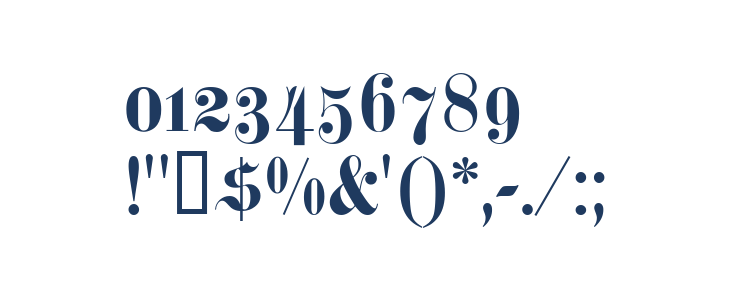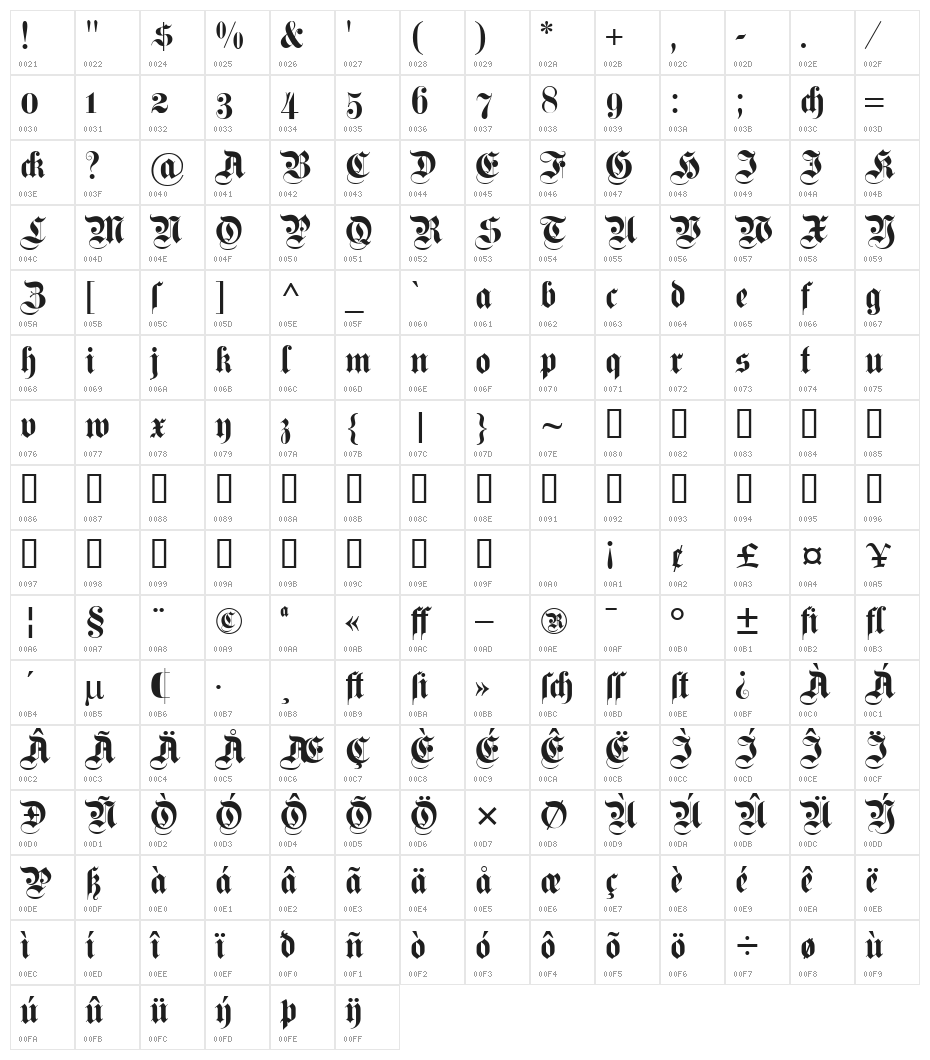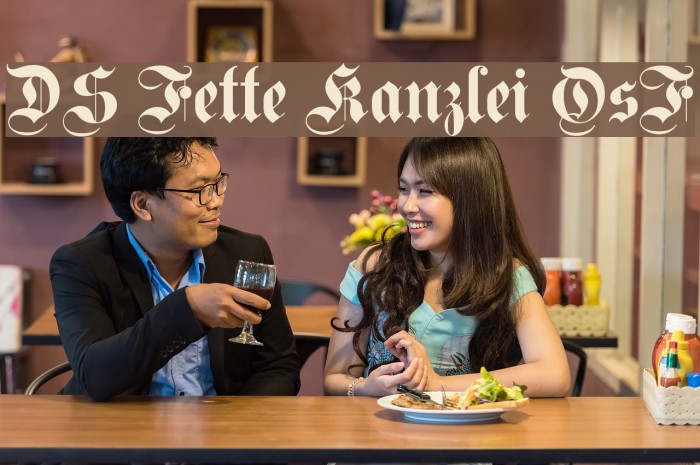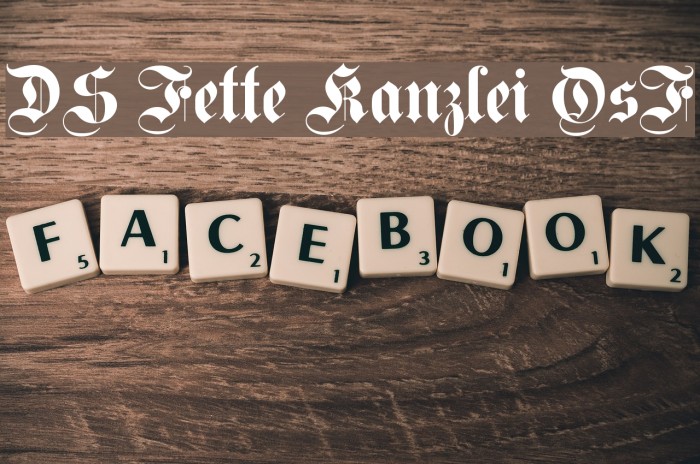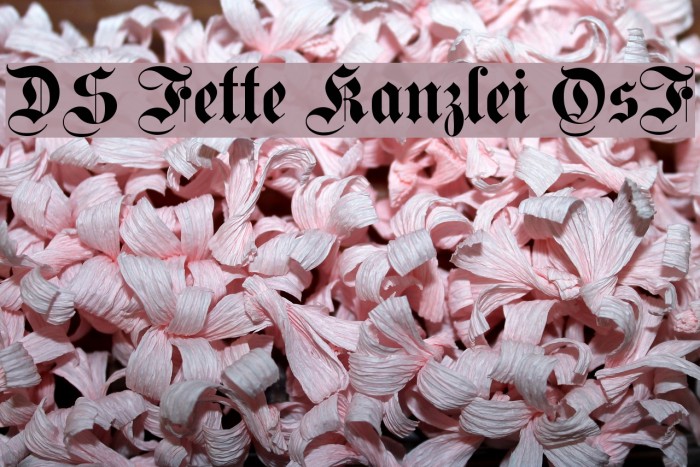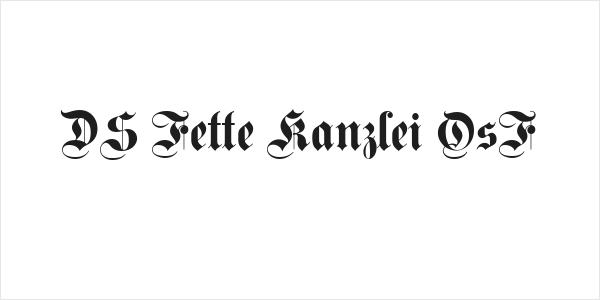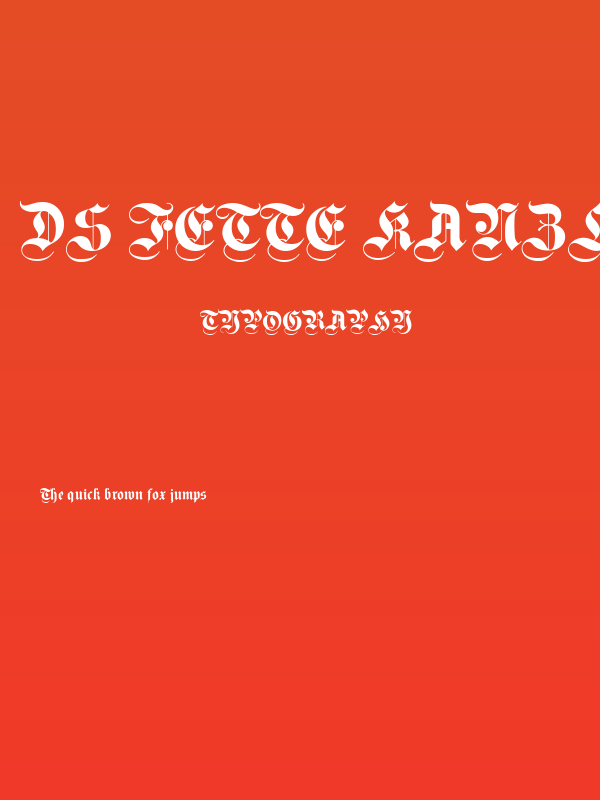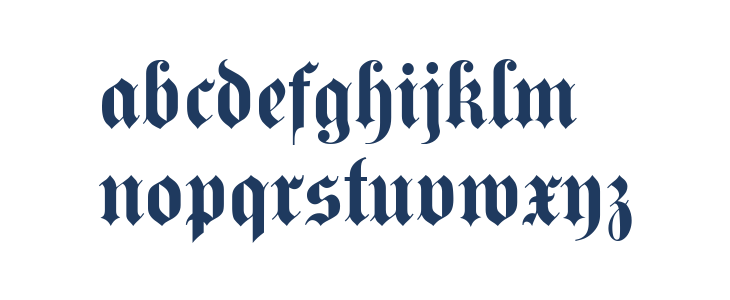
DS Fette Kanzlei OsF Font
DS Fette Kanzlei OsF Description
This font exudes a classic and traditional aura with its intricate and ornate design. The characters are reminiscent of historical scripts, featuring elaborate flourishes and a bold, authoritative presence. The uppercase letters are particularly striking, with their dramatic curves and sharp angles, while the lowercase letters maintain a consistent style that complements the overall aesthetic. The numerals and special characters are equally detailed, ensuring a cohesive look across all text. This font is ideal for projects that require a touch of elegance and historical charm, such as invitations, certificates, or branding that seeks to convey a sense of heritage and sophistication.
Overall StyleClassic
Proposed ProjectsIdeal for invitations, certificates, branding, and projects requiring a historical or elegant touch.